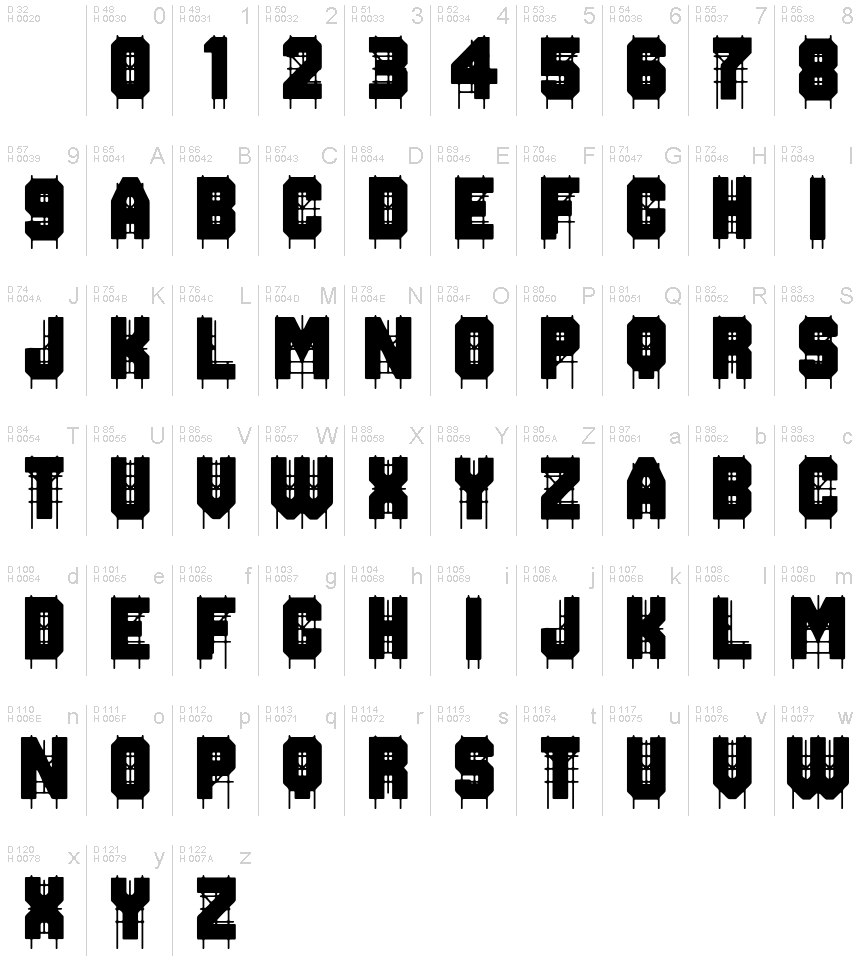
On The Roof
"On the Roof" is a bold, condensed display font that exudes a captivating, modern aesthetic. Characterized by its striking silhouetted letterforms and dramatic negative spaces, this font effortlessly commands attention. The condensed width lends a sense of strength and impact, while the decorative, geometric design style evokes a distinct urban, industrial vibe. This font would shine in a variety of applications, from eye-catching headlines and logos to impactful branding and packaging designs.
Its versatility and visual impact make "On the Roof" a compelling choice for designers seeking to create memorable, attention-grabbing designs.